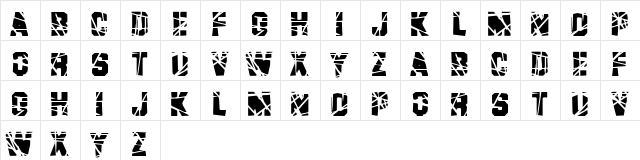
Brad Normal Free Font
Brad Normal
Brad Family
Design Context for Brad
Brad is a composed and adaptable typeface that performs quietly and consistently across a wide range of design contexts.